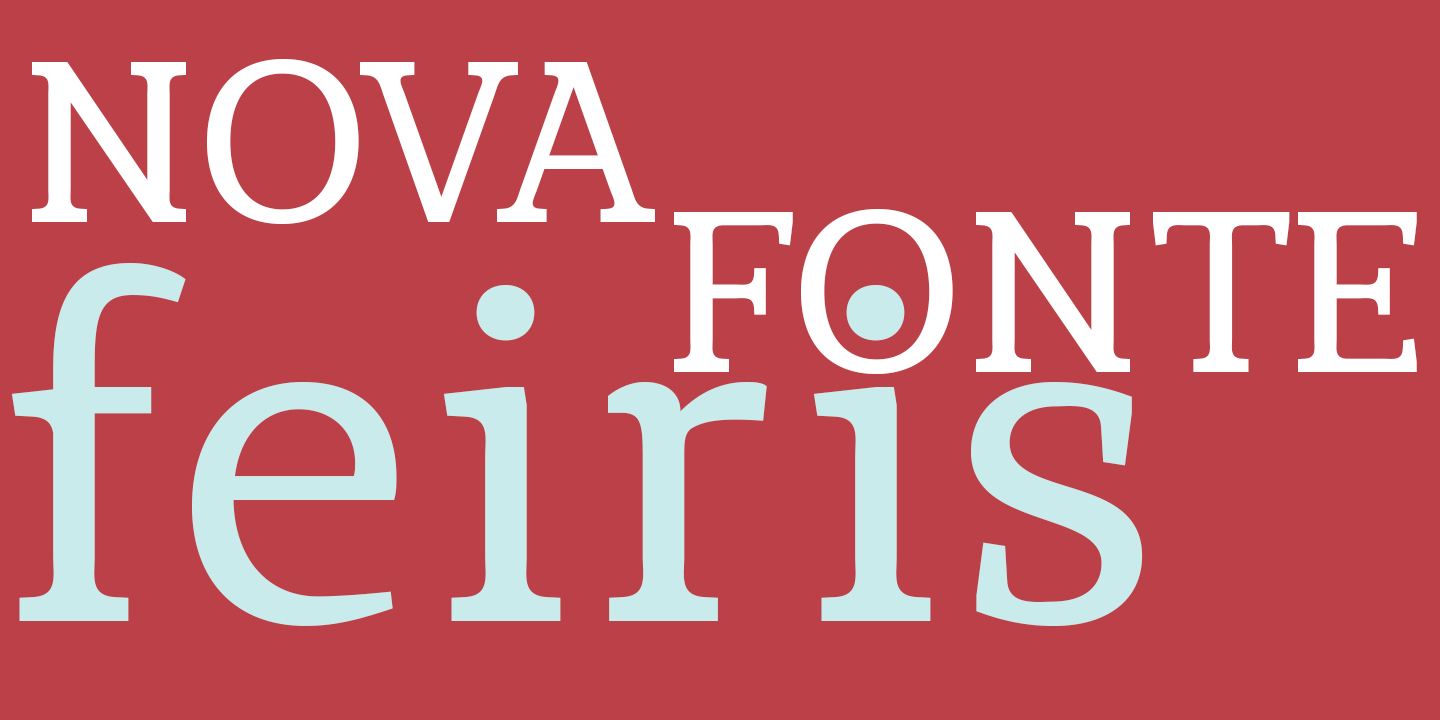
Designed by Leandro Ribeiro Machado, Feiris is a slab serif font published by Leandro Ribeiro Machado.
The Feiris serif type is designed for comfortable reading, great for text, fitting nicely into small and large blocks of text.